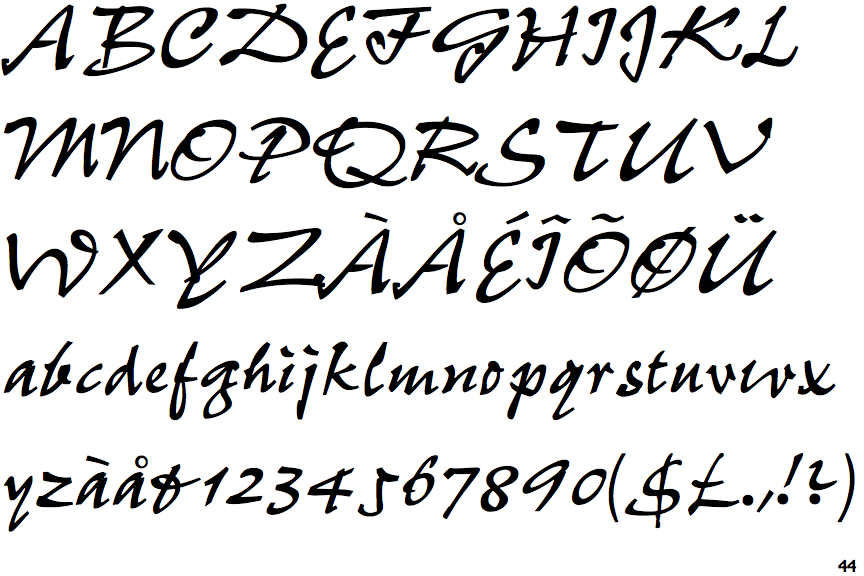
A selection of 72 ornaments and plenty of ligatures and alternate characters: 100 free fonts alternatives to. Pepita is a flexible and easy to use connected script.
This font is awesome because i made it ya i made it 👌 this text font was made using instafonts.io. Pepita has plenty to offer: Pepita is a flexible and easy to use connected script.
A selection of 72 ornaments and plenty of ligatures and alternate characters: Pepita was designed by imre reiner and published by monotype. Pepita mt std is free for personal use only.
Individual styles family packages tech specs licensing. Pepita font this font was posted on 08 may 2015 and is called pepita font. Pepita is a flexible and easy to use connected script.
Pepita Is The Perfect Font For All Your Fun Designs.